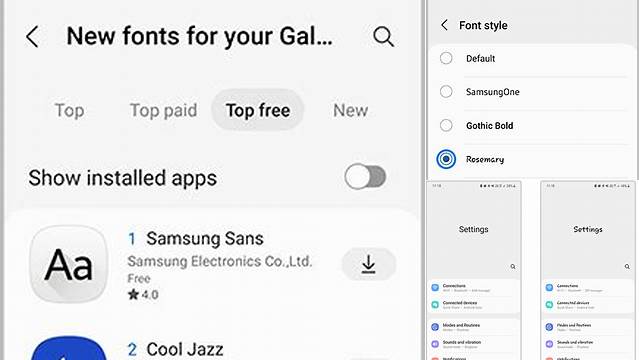
How To Download Fonts On Samsung Galaxy? A Guide
#H1 Title: Download Fonts for Your Samsung Galaxy: A Comprehensive Guide
Hey guys! Ever feel like your phone's default font is just...blah? Want to inject a little personality into your Samsung Galaxy? You're in the right place! In this comprehensive guide, we're diving deep into the world of custom fonts on your Samsung device. We'll cover everything from the easiest methods to the more advanced techniques, ensuring you can find the perfect font to match your style. So, let's ditch the boring defaults and make your phone truly yours!
Why Change Your Samsung Galaxy Font?
Before we jump into the how, let's talk about the why. Why bother changing your font in the first place? Well, for starters, it's a fantastic way to personalize your device. Your phone is an extension of you, and the fonts you use can reflect your personality and taste. A sleek, modern font can give your phone a sophisticated vibe, while a playful, quirky font can inject some fun into your daily interactions. Beyond aesthetics, custom fonts can also improve readability. If you struggle with the default font size or style, switching to a clearer, more legible font can make a huge difference in your overall user experience. Plus, let's be honest, it's just plain fun to experiment and try out different looks! The possibilities are endless, and you can switch fonts as often as you like to keep things fresh. Changing your font can significantly enhance your device's appeal, making it feel newer and more aligned with your current preferences. Whether you are looking for a modern, classic, or unique style, the ability to customize fonts puts the power in your hands to create a truly personalized experience. This is particularly useful if you find the default fonts straining on your eyes or simply wish to break away from the standard look that everyone else has. So, think of it as giving your phone a mini-makeover – a simple change that can have a big impact!
Finding the Perfect Font for You
Okay, so we've covered the how of downloading fonts on your Samsung Galaxy, but let's talk about the what. What kind of font should you actually choose? With so many options available, it can be overwhelming to pick the perfect one. Fear not, font fanatics! We're here to help you navigate the world of typography and find the font that speaks to your soul (or, at least, your phone's aesthetic). First, think about your personal style. Are you a minimalist who prefers clean, modern lines? Or are you a more playful type who likes quirky, hand-drawn fonts? Do you lean towards classic, elegant fonts, or bold, attention-grabbing ones? Your personal style is a great starting point for narrowing down your choices. If you're not sure where to start, try browsing some font websites or apps and see what catches your eye. Pay attention to the different categories of fonts, such as serif, sans-serif, script, and decorative. Serif fonts have small decorative strokes at the ends of the letters, while sans-serif fonts don't. Script fonts look like handwriting, and decorative fonts are more unique and stylized. Once you have a general idea of the style of font you're looking for, think about readability. A font might look beautiful, but if it's hard to read, it's not going to be very practical for everyday use. Consider the font's weight (how thick or thin the letters are), its spacing (how much space there is between the letters), and its overall clarity. It's a good idea to preview the font on your phone before you commit to it, to make sure it looks good on your screen size and resolution. Another thing to consider is how the font will look in different contexts. Will it be easy to read in text messages? Will it look good in app menus? Will it complement your phone's wallpaper and theme? It's a good idea to try out the font in different apps and settings to see how it performs. Don't be afraid to experiment! The beauty of font customization is that you can switch fonts as often as you like. Try out different fonts and see what you like best. You might be surprised at what you discover! And remember, there's no right or wrong answer when it comes to choosing a font. It's all about personal preference. So, have fun, be creative, and find the font that makes you happy! Ultimately, the perfect font is the one that you enjoy looking at and that makes your phone feel more like you.
Final Thoughts: Make Your Galaxy Truly Yours!
So, there you have it, guys! A complete guide to downloading and customizing fonts on your Samsung Galaxy. We've covered everything from the easy-peasy Galaxy Themes app to the more advanced ADB method. We've talked about finding the perfect font for your style, and we've even tackled some common troubleshooting tips. Now it's your turn to get creative and make your phone truly yours! Customizing your font is a small change that can make a big difference in your overall user experience. It's a way to express your personality, improve readability, and just add a little bit of fun to your daily interactions with your phone. Don't be afraid to experiment and try out different fonts. The possibilities are endless, and you can switch fonts as often as you like to keep things fresh. Whether you're looking for a sleek and modern font, a playful and quirky font, or a classic and elegant font, there's a perfect font out there for you. So, go forth, font fanatics, and transform your Samsung Galaxy into a masterpiece of typography! And remember, if you ever run into any font issues, don't hesitate to refer back to this guide for troubleshooting tips. Happy font-ing!